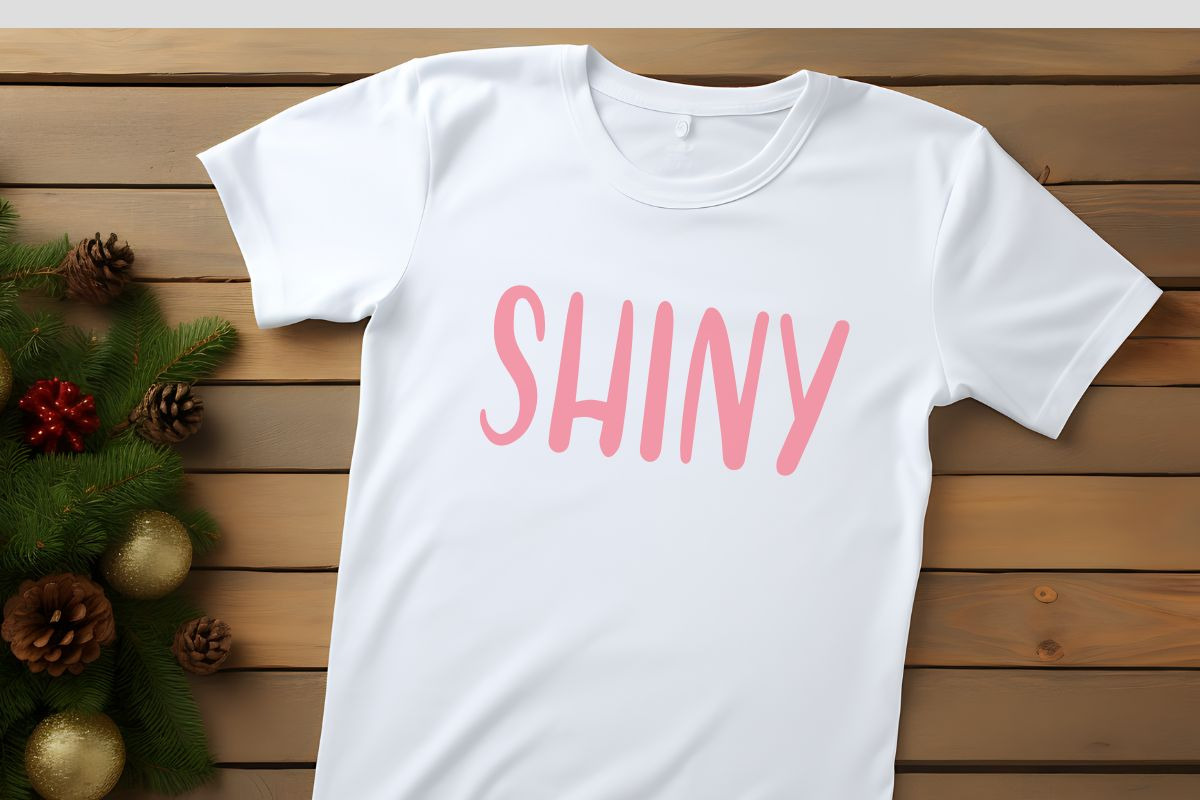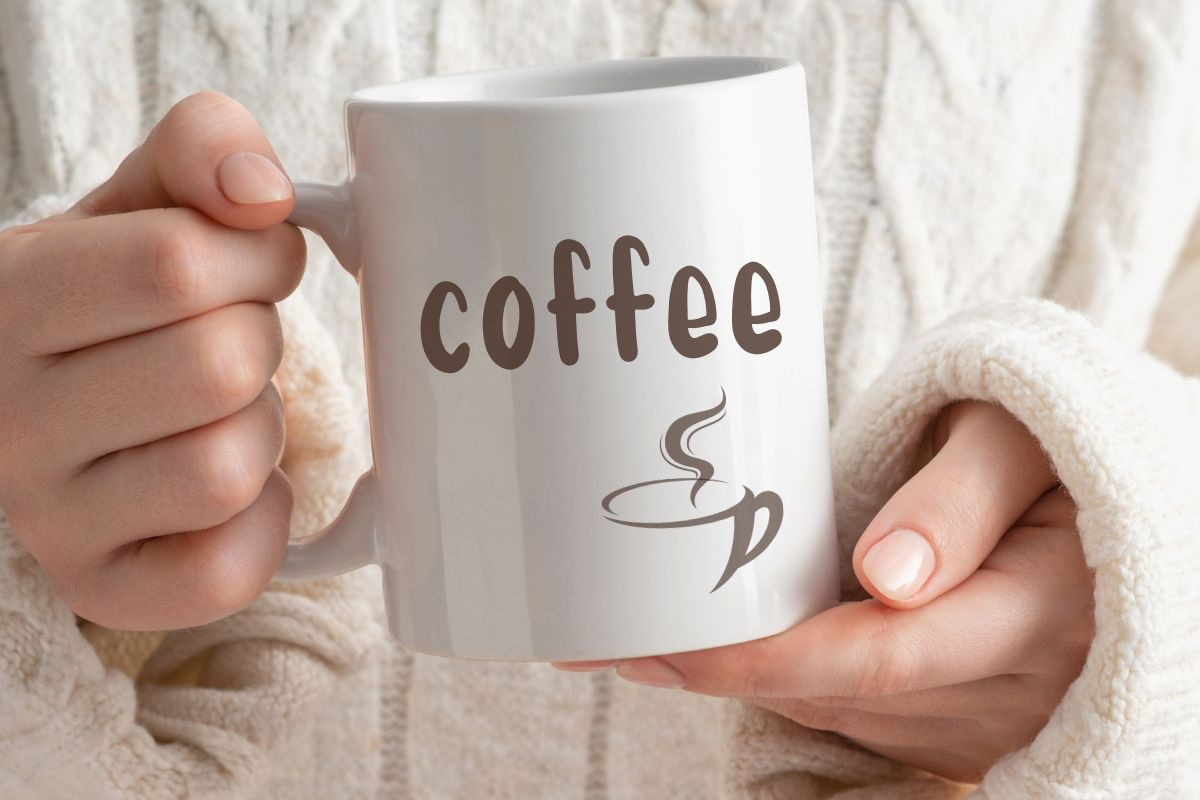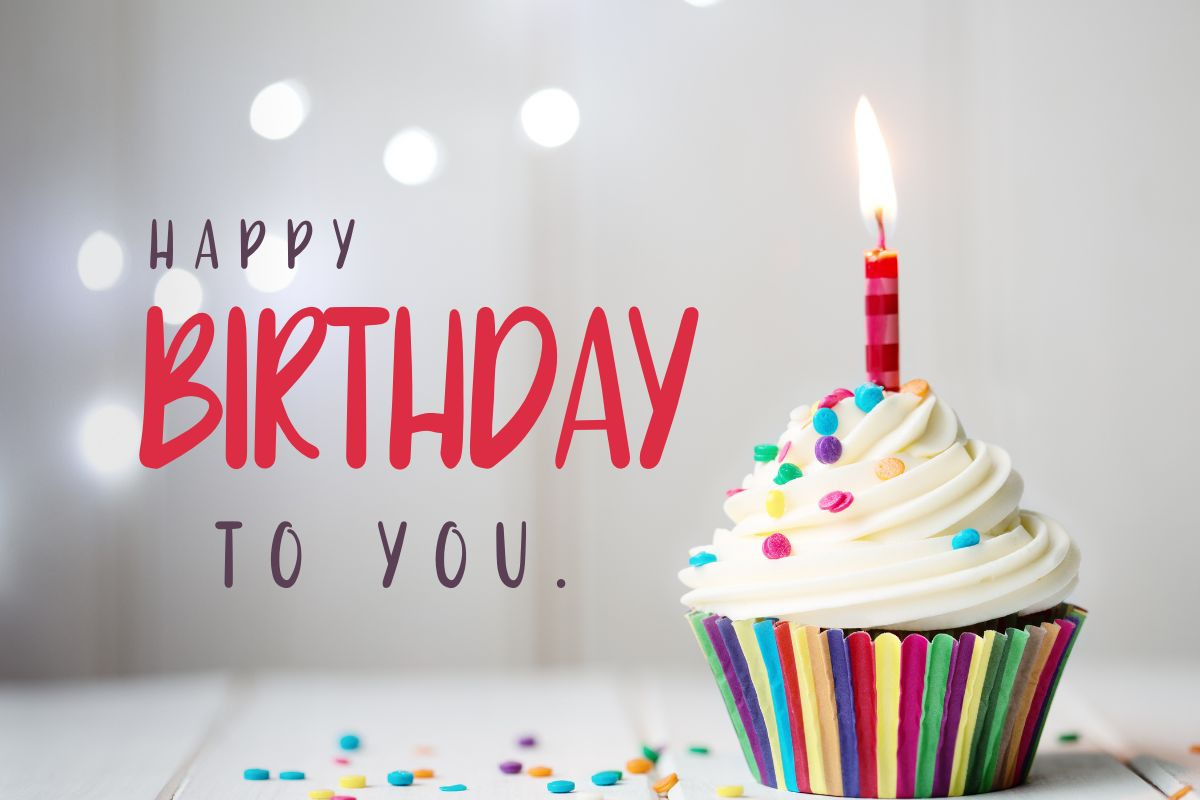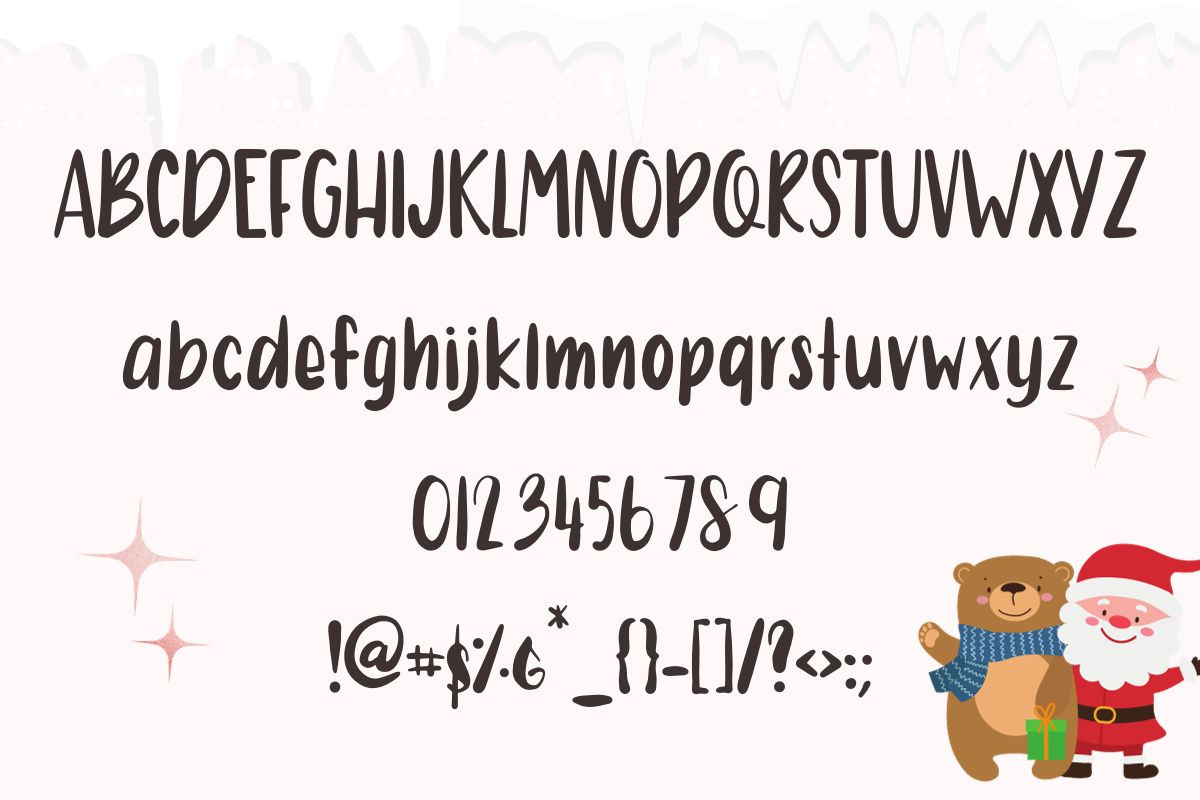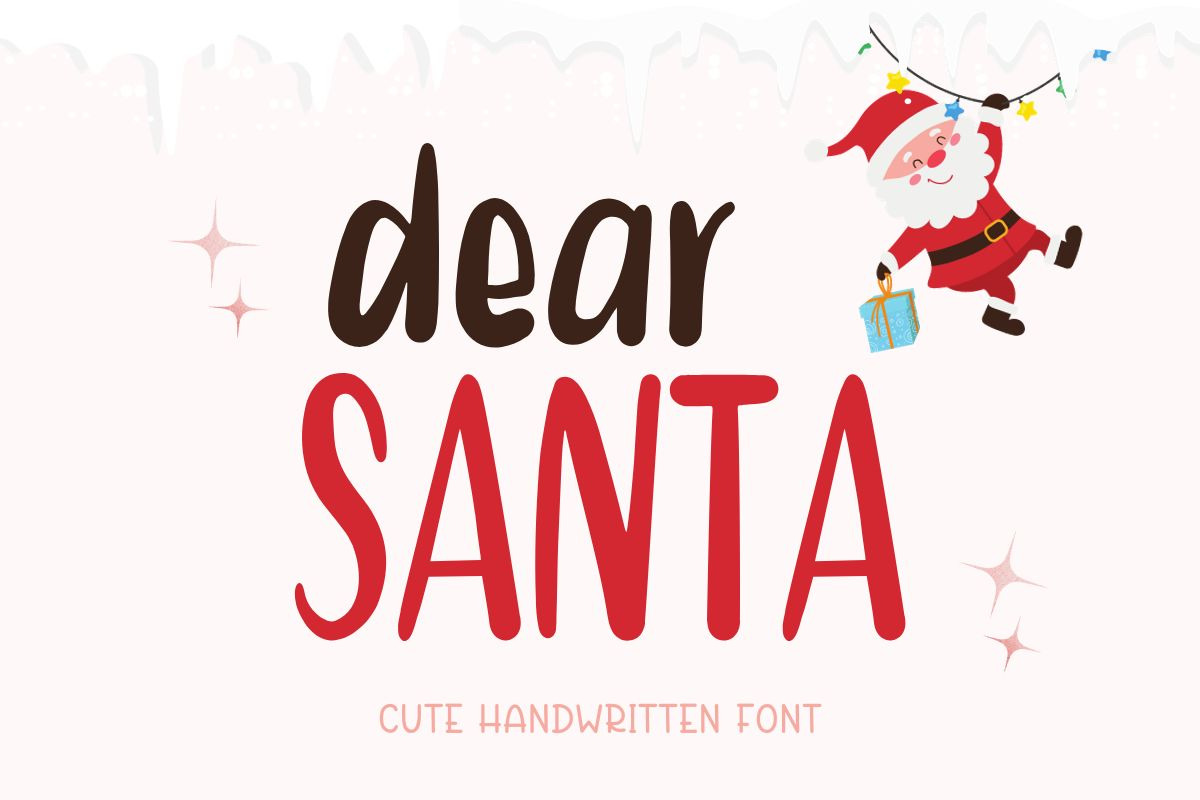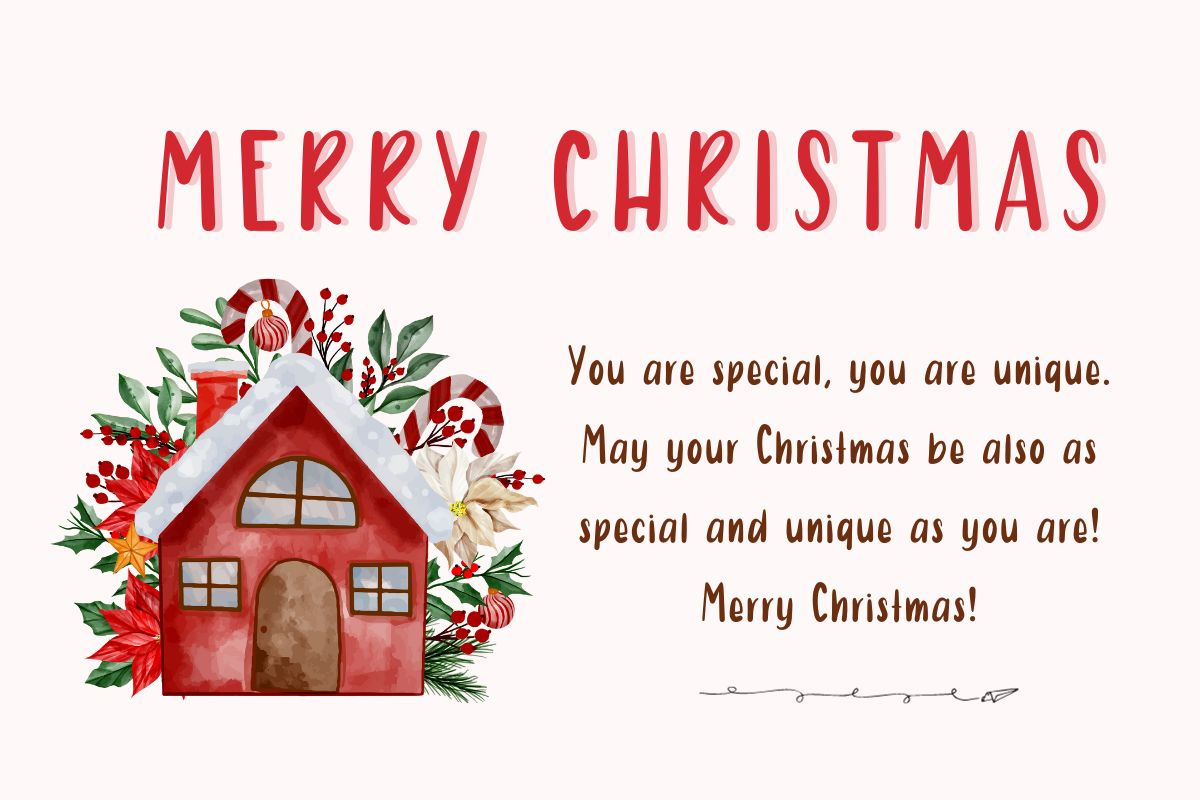
Dear Santa - Cute Handwritten Font
Dear Santa – an irresistibly cute and chunky handwritten font that instantly brings a burst of friendliness and charm to any project! This font features bold, round letters with a slightly bouncy baseline, giving it a playful, authentic hand-lettered feel. Its thick lines ensure perfect readability, making it ideal for both large display titles and smaller text applications.